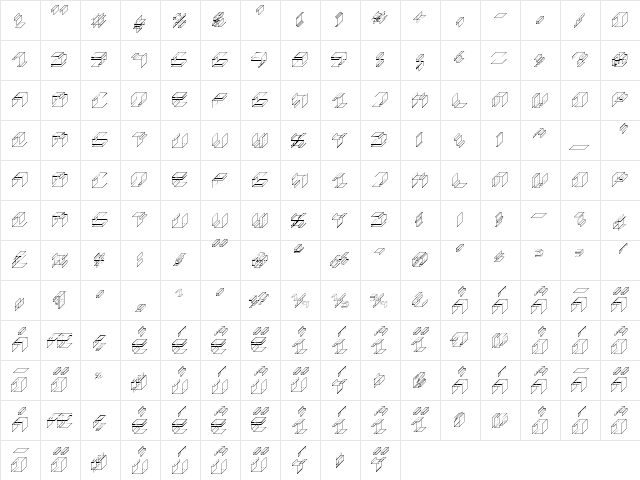
Paper Cube *cube version* Regular
Design Context for Paper Cube *cube version* Typeface
Paper Cube *cube version* is a composed and adaptable typeface that performs quietly and consistently across a wide range of design contexts.